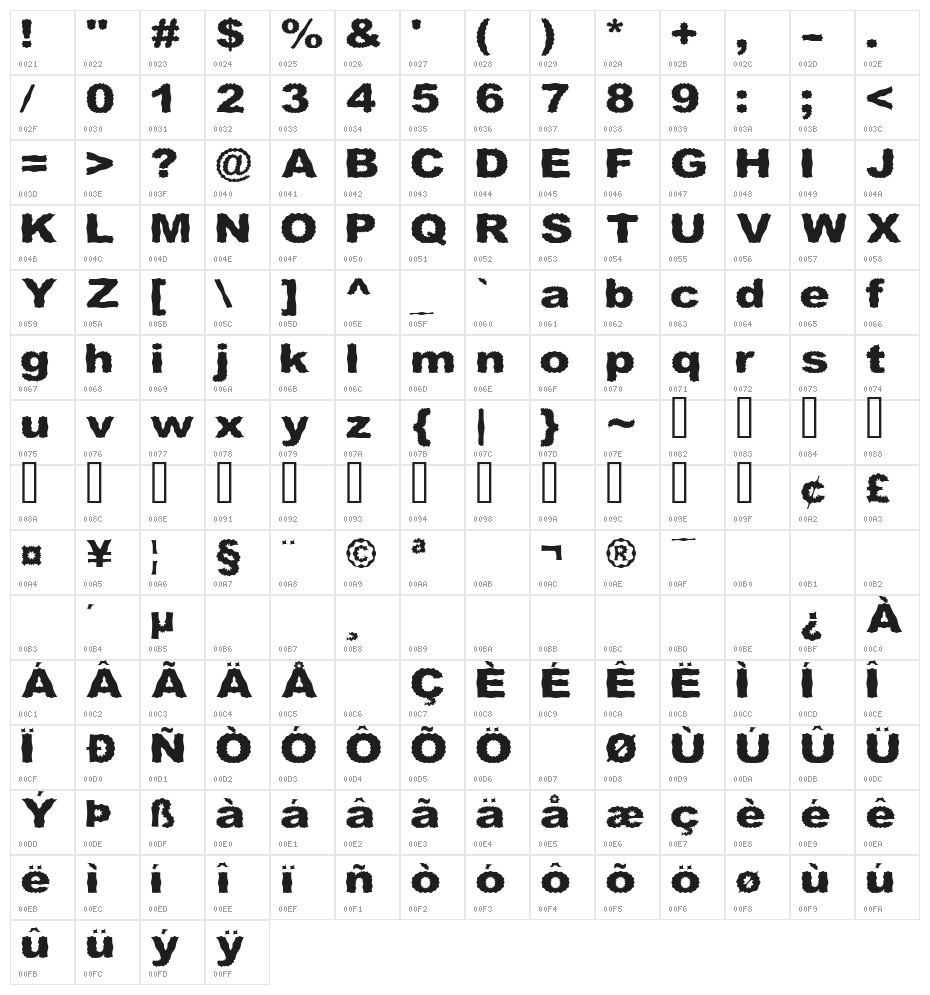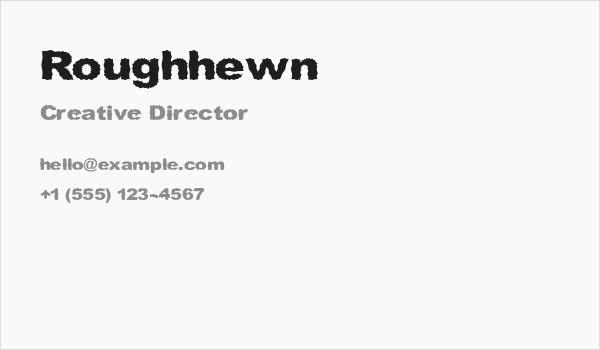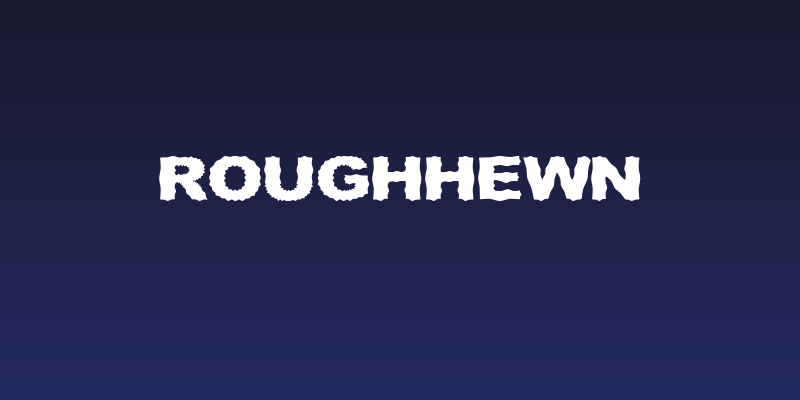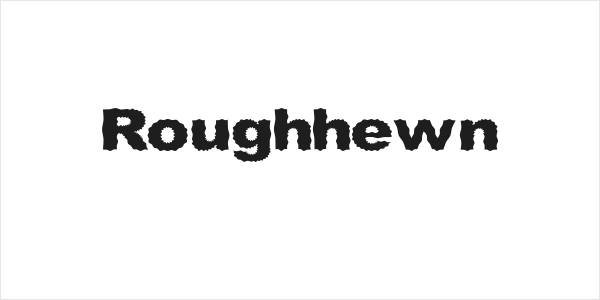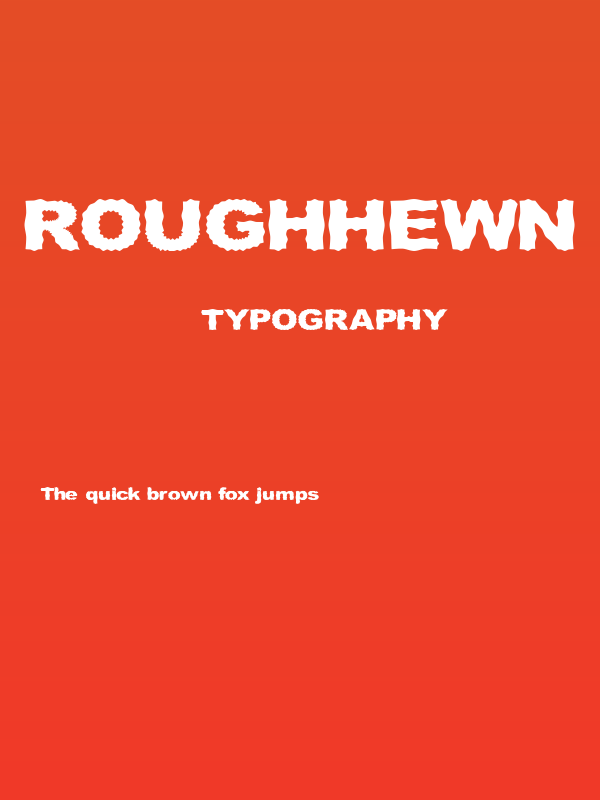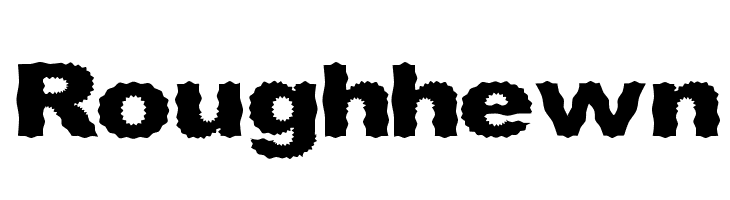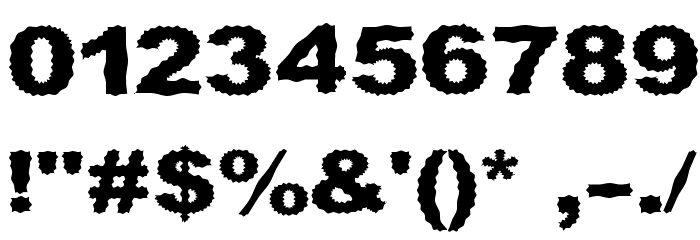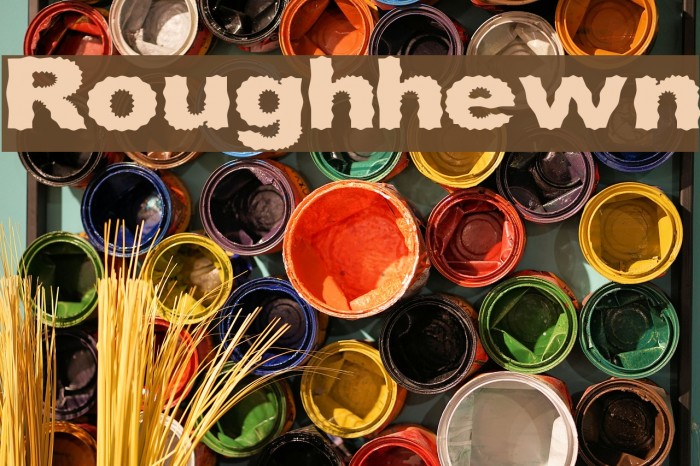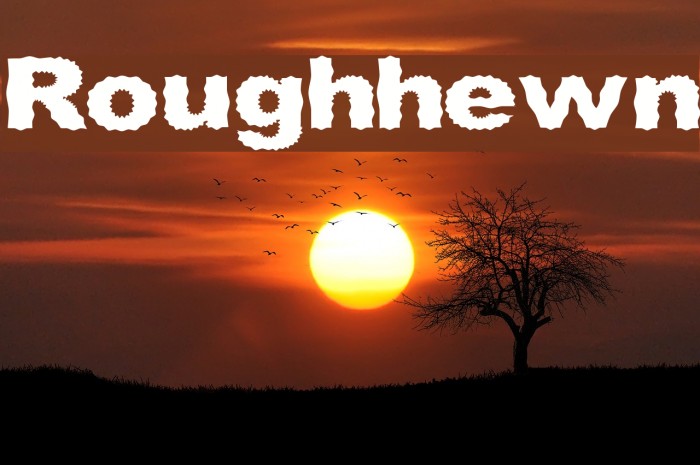
Roughhewn Font
Fonts by Graham Meade - GemFonts
| Stile generale | Rustic, Organic, Bold |
| Caso d'uso | Logos, Posters, Headlines |
| Progetti proposti | Ideal for outdoor adventure branding, rustic-themed posters, nature-inspired logos, and artisanal product packaging. |